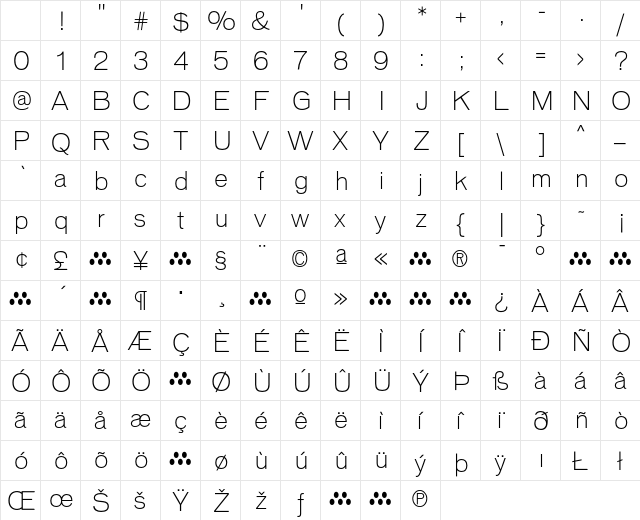
VonnesTTLight is a composed and adaptable typeface that performs quietly and consistently across a wide range of design contexts. Its slender proportions lend an understated elegance to any composition.